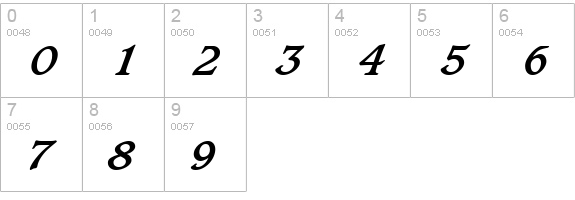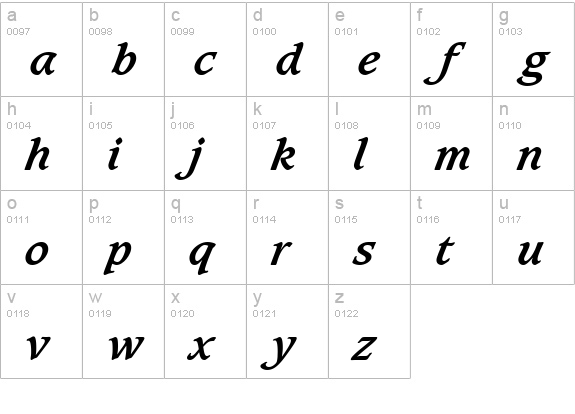
Grammateus SSi Bold Italic Font Details
Grammateus SSi Bold Italic is a strong, high-contrast, italic variant in the Grammateus typeface family \xE2\x80\x94 well suited to headlines, attention-grabbing titles, and strong calls-to-action.
Grammateus SSi Bold Italic font is a striking and modern typeface that exudes sophistication and elegance. Its bold and italic design adds a touch of flair to any project, making it perfect for logos, headlines, and other design elements that require a strong visual impact. With its clean lines and sharp angles, Grammateus SSi Bold Italic commands attention and leaves a lasting impression. What's even better is that this stunning font is available for free download at FontsMarket.com. So, whether you're a professional designer looking to add a unique touch to your work or simply someone who appreciates high-quality fonts, Grammateus SSi Bold Italic is a must-have in your collection. Download it now and elevate your designs with this exquisite typeface.